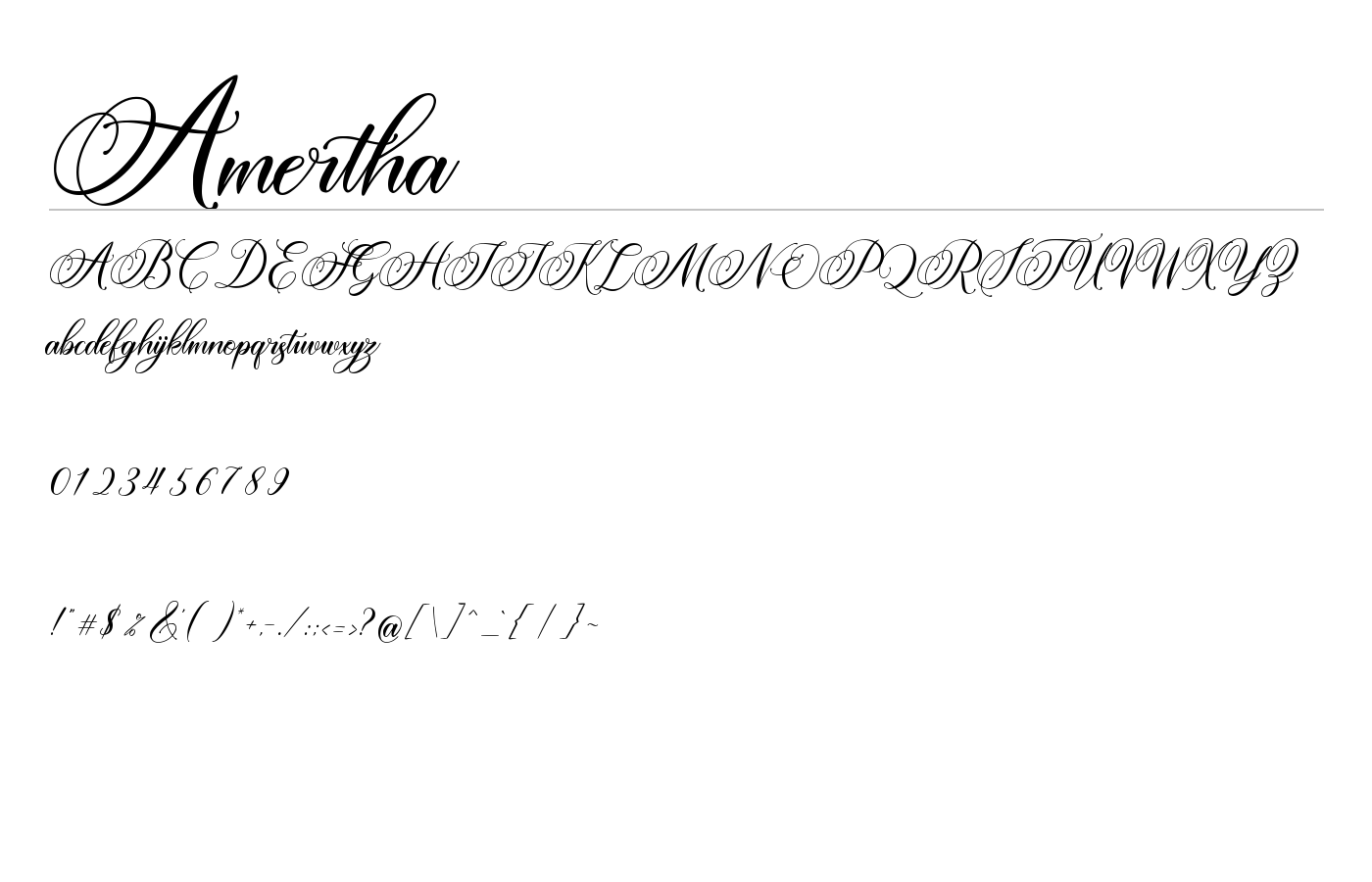
Amertha is an elegant script font featuring delicate, flowing strokes with ornate flourishes that give it a sophisticated and classic feel. Its high contrast and refined letterforms make it ideal for luxury branding, wedding invitations, and stylish headlines where a graceful, decorative touch is desired. This font works best in designs that aim to convey elegance and refinement with a timeless, romantic flair.
Amertha Font
About Amertha Font
| Font family | Amertha Font |
| Designer | Fatoni Nurman |